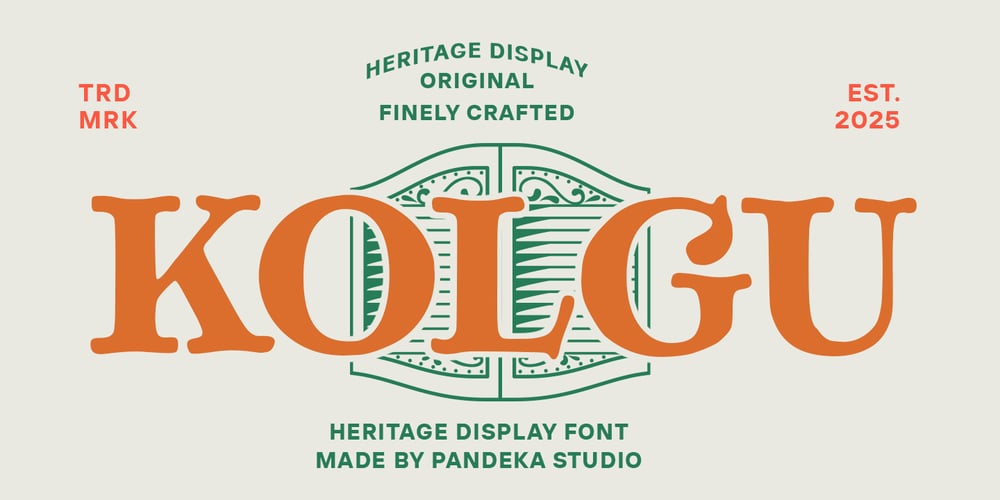
Kolgu
Kolgu font
Kolgu Font Family was designed by Sagara Nararya and published by Pandeka Studio. Kolgu contains 1 styles and family package options. Kolgu – Heritage Serif TypefaceKolgu is a classic serif font with a timeless vintage aesthetic, blending elegance and bold character. Ideal for heritage branding, editorial design, packaging, book covers, and sophisticated typography, it brings a refined and unique touch to any project.What’s Included: Main Files formats 1 Style: Regular Full Character Set: Uppercase, lowercase, numbers, symbols, and punctuation Easy to Use: Works on both PC & Mac Compatible with Adobe Illustrator, Photoshop, Microsoft Word, Canva, and more PUA Encoded: Fully accessible without additional software Heritage Serif Font Classic Typography Timeless Design Vintage Aesthetic Elegant Lettering Sophisticated Style Unique TypefaceThank you and happy designing!Pandeka Studio